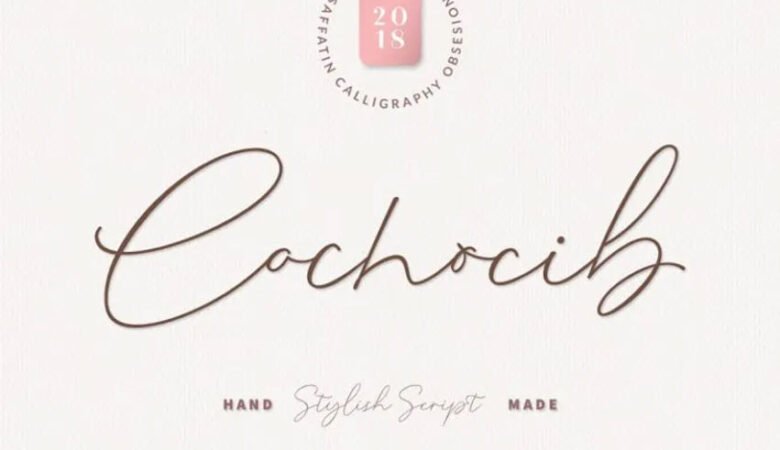
Shotting Cibe Font with new style, this font will be perfect for many different projects ex: quotes, logos, blog headers, posters, banding, letters, invitations, stationery, etc…